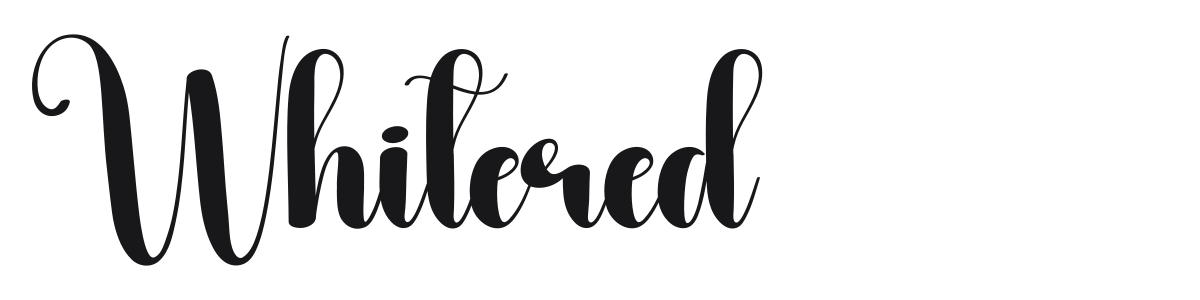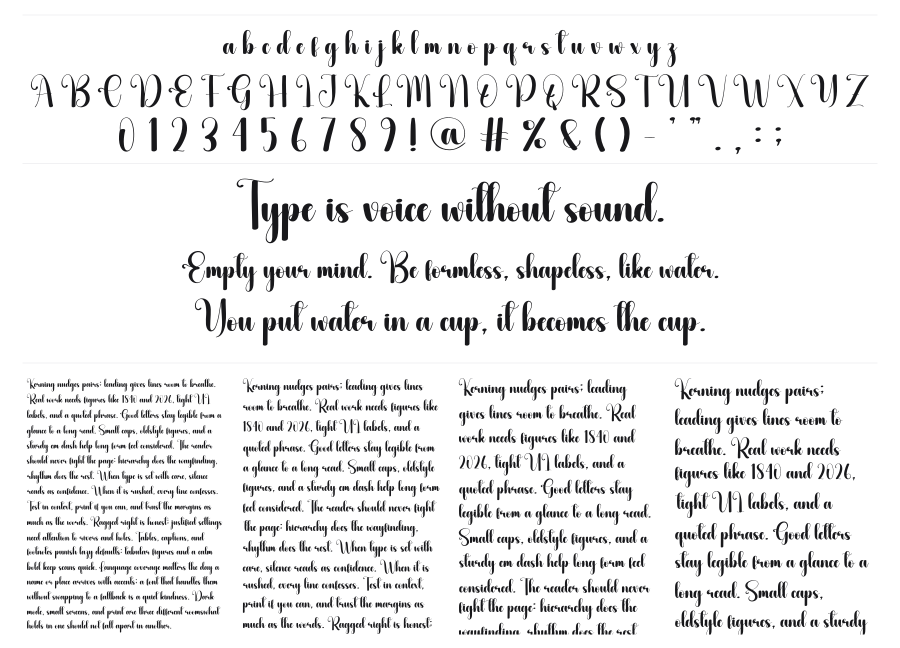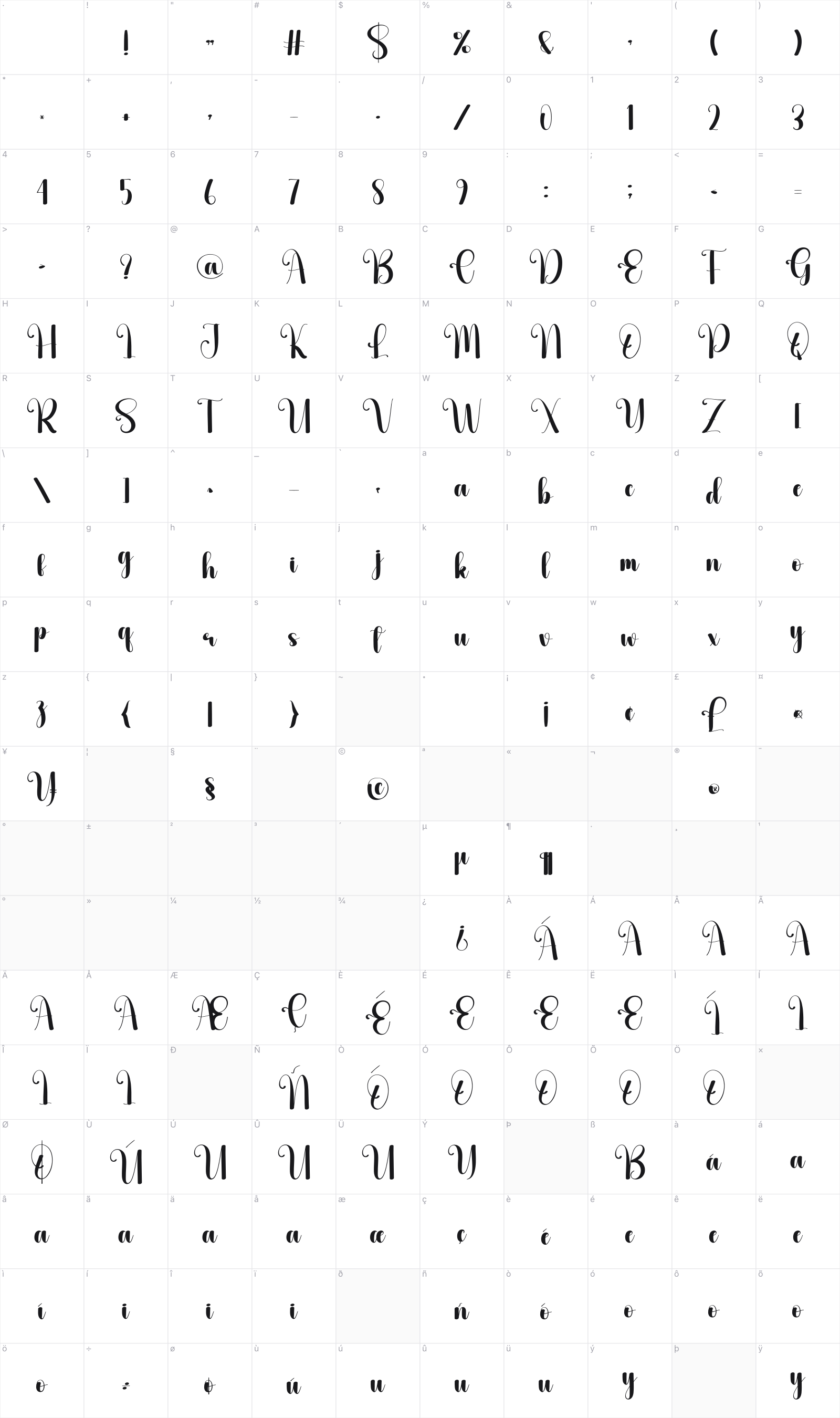
Whitered
Whitered is a bold connected casual script with high stroke contrast, looping swashes, and a bouncy rhythm that feels warm and celebratory. The thick downstrokes and hairline upstrokes give it calligraphic polish while the loose, flowing connections keep it from feeling stiff. It works best at large display sizes for invitations, packaging, and branding with a personal or festive touch.